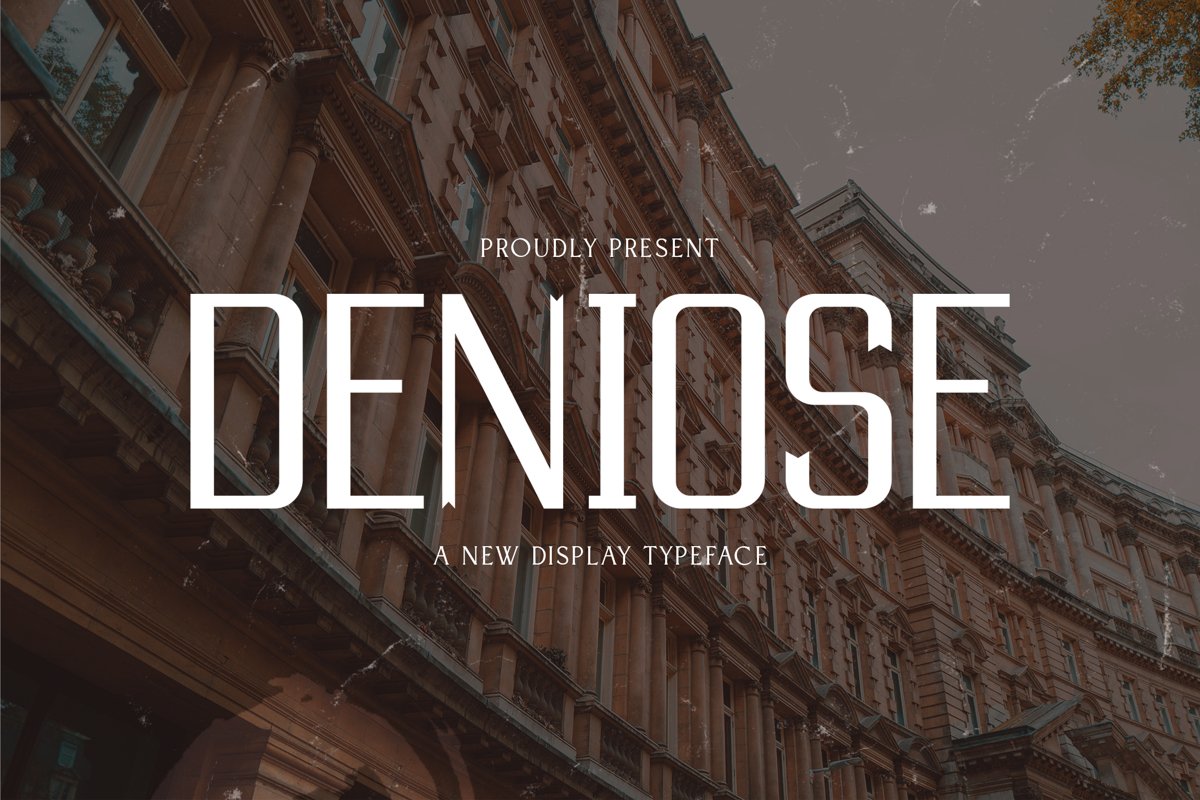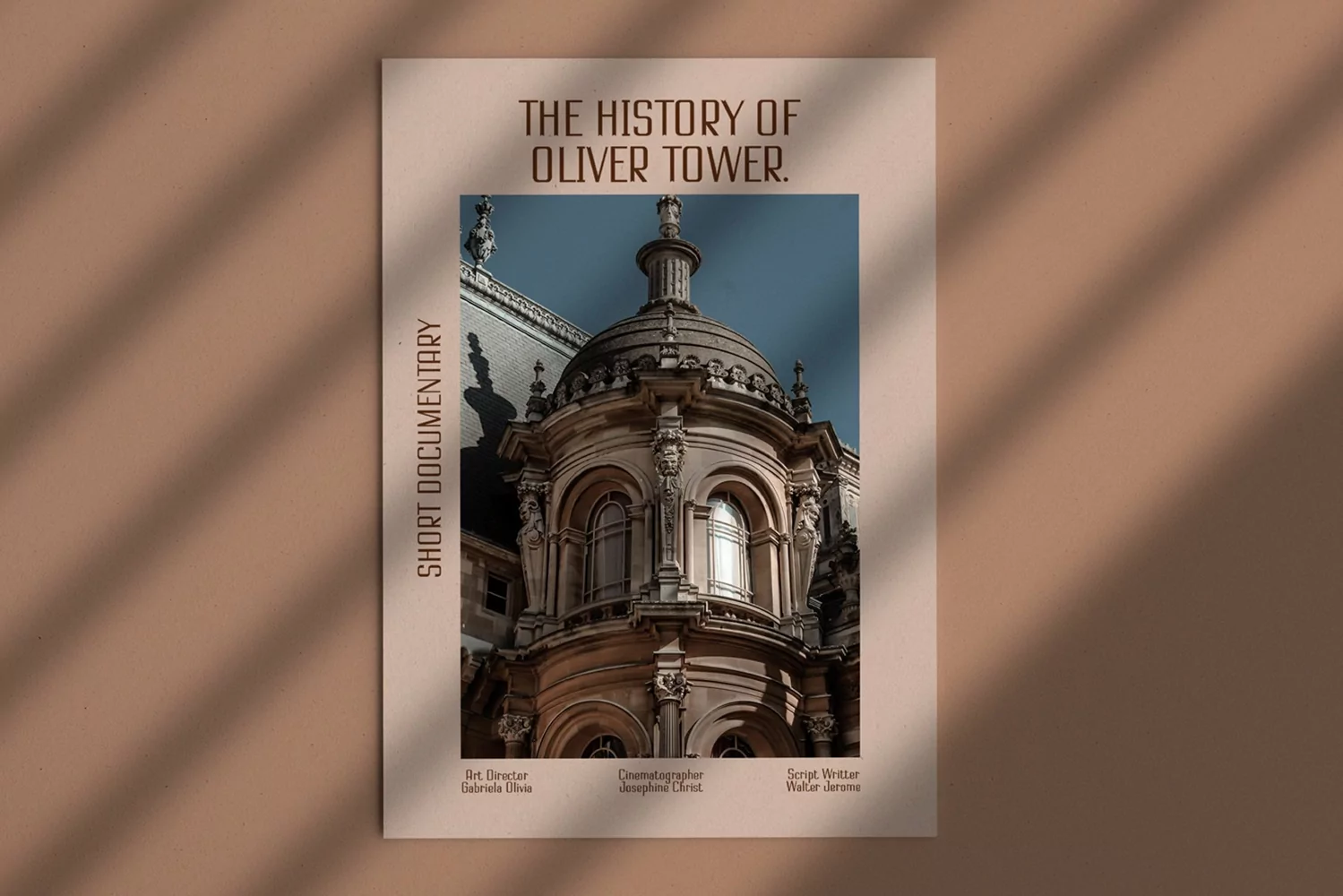
Denoise is a display typeface. Perfect for display, product, quotes, business card, header, tittle, crafting needs, branding, logo, logotype, merchandise, packaging and many more.